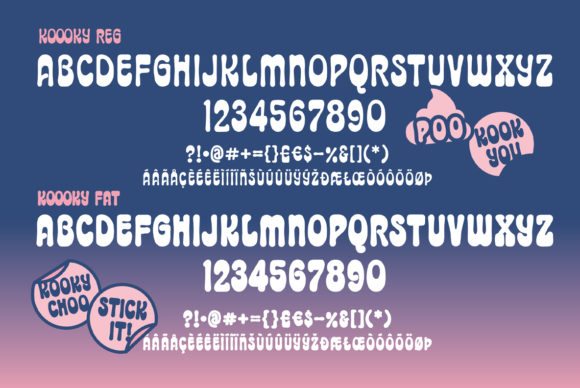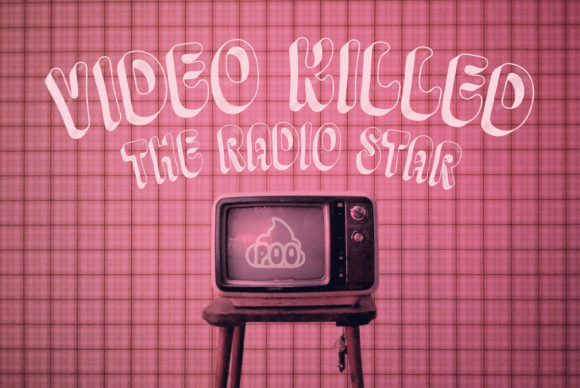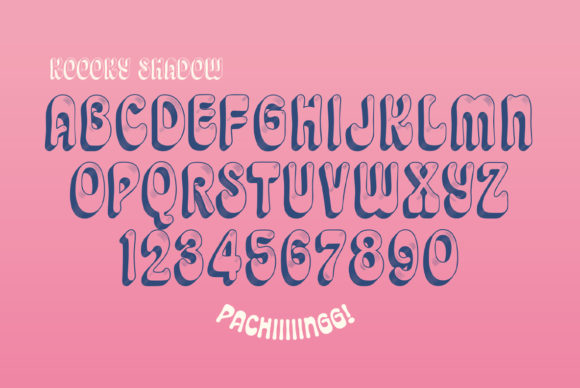
Introduction to Koooky Font
Koooky is a unique and funky display font.
It features a fun and joyful style and it will add a hippy dippy vibe to your designs It’s perfect for kids and school projects, 70’s TV sitcom titles or hipster barista pamphlets.
Key Features of Koooky Font